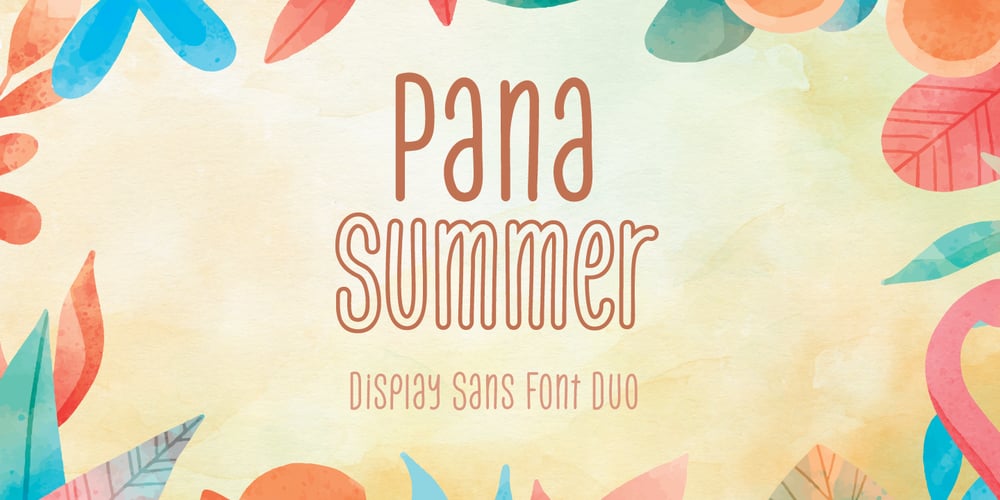
Pana Summer Font Family was designed by Fadli Ramadhan Iskandar and published by Attype Studio. Pana Summer contains 2 styles and family package options. Pana Summer is a Display summer font duo, make an amazing combination between outline and regular style.Pana Summer is perfect for summer event, summer party, branding, logo, invitation, quotes, apparel design, product packaging, merchandise, game titles, cute style design, Book/Cover Title and more.What’s Included :- Multilingual Support – Font Duo—Hope you enjoy with our font!Attype Studio